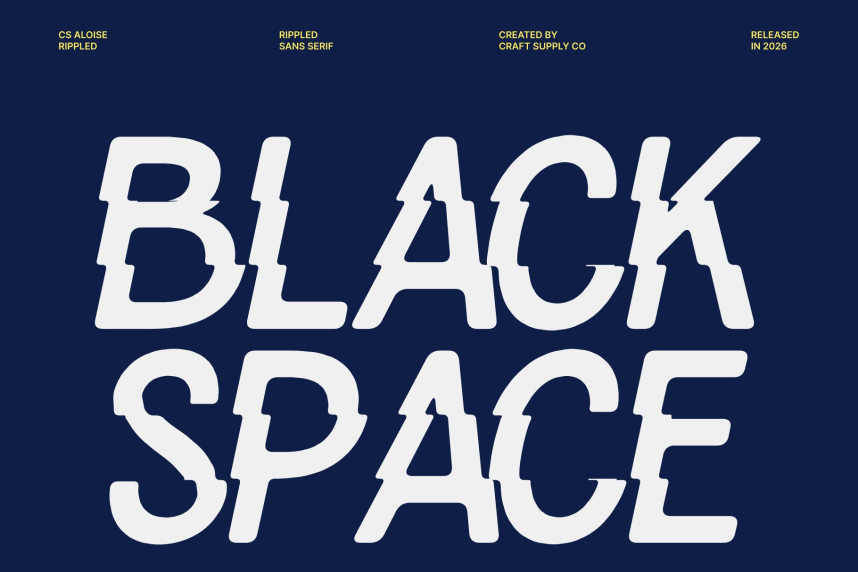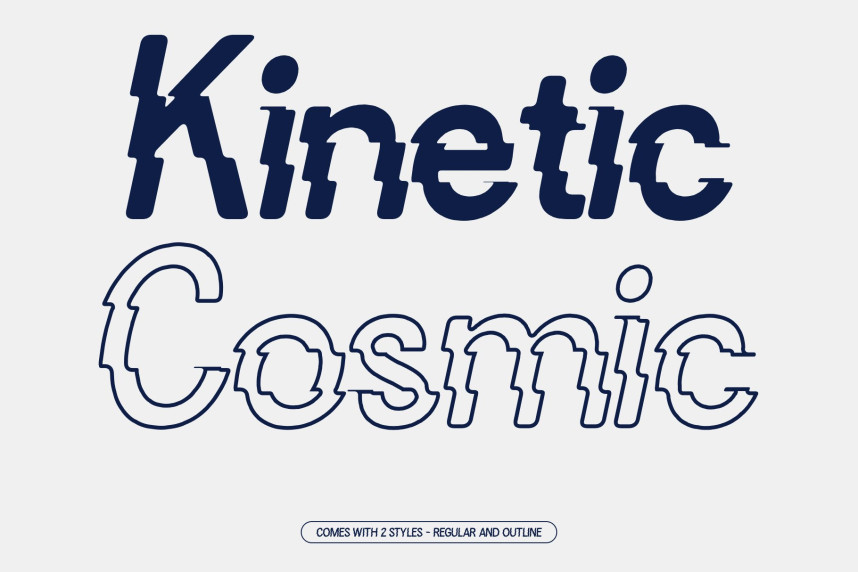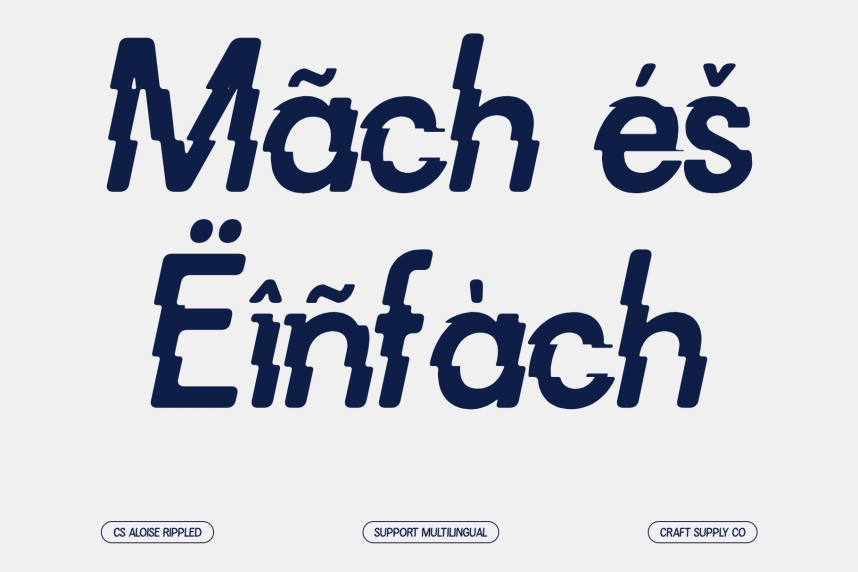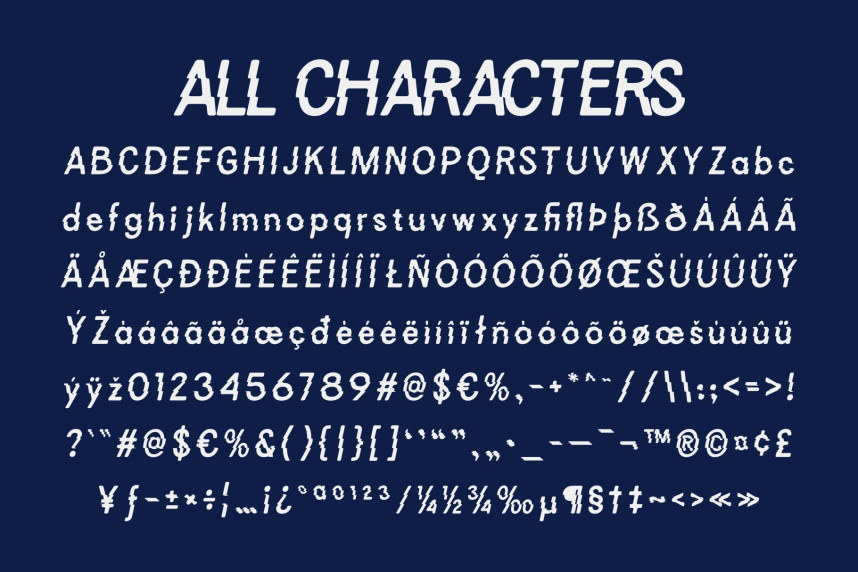
CS Aloise Rippled Font
CS Aloise Rippled Font – Contemporary Font with Fluid Modern Precision
Clean and Professional Sans-Serif Design
This is a contemporary sans serif typeface crafted to express precision, clarity, and modern sophistication. Built on a geometric foundation, the font delivers a clean and balanced visual structure that enhances harmony across layouts. Its carefully refined proportions create a sleek and professional tone, making every word appear polished and purposeful.